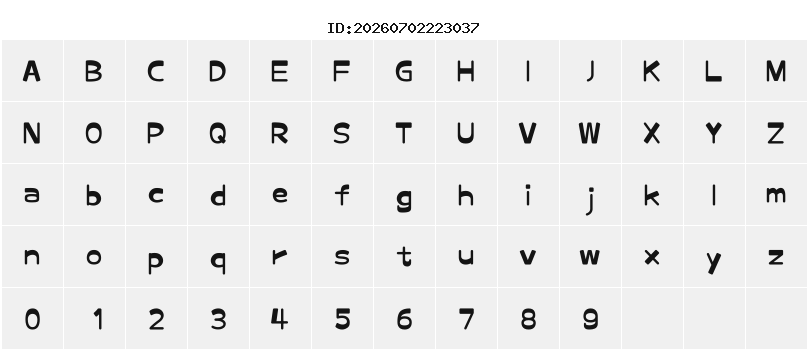
276-上首佛陀体.ttf is a modern, elegant sans-serif font designed for ultimate readability and visual harmony. Perfect for branding, headlines, web design, and print materials.